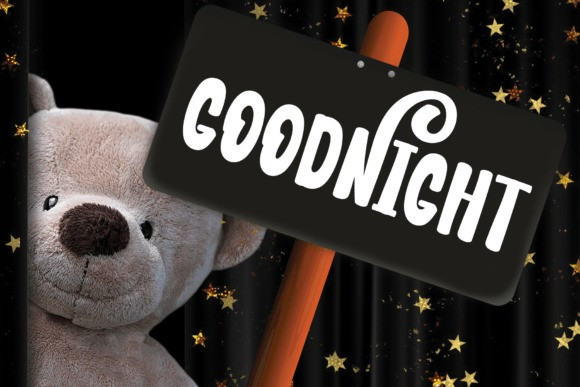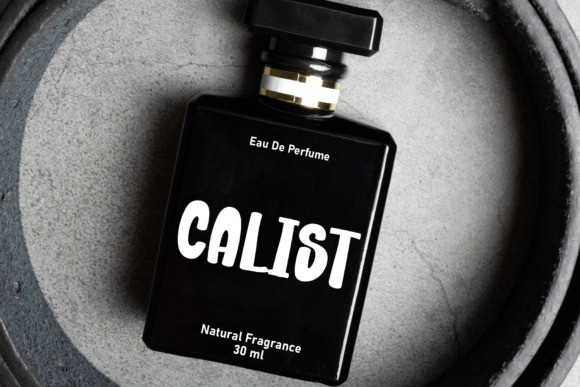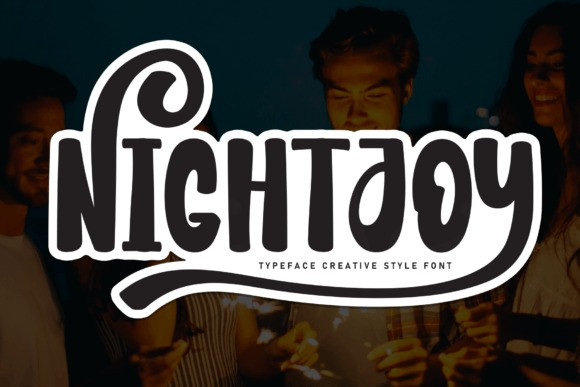
Nightjoy Font
Nightjoy Font is a sweet and friendly handwritten font. Its natural and unique style makes it incredibly fitting to a large pool of designs. The only limit is your imagination!